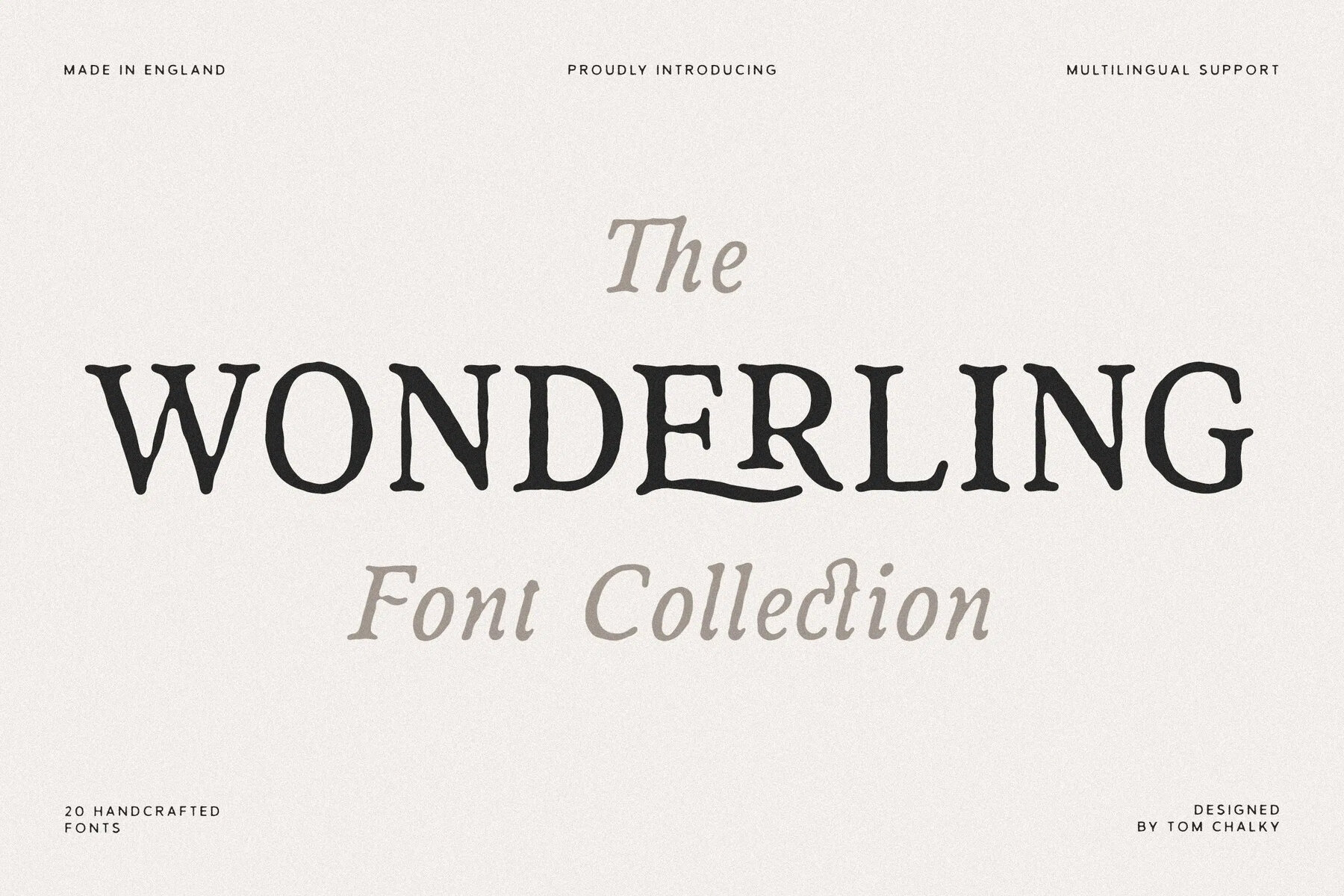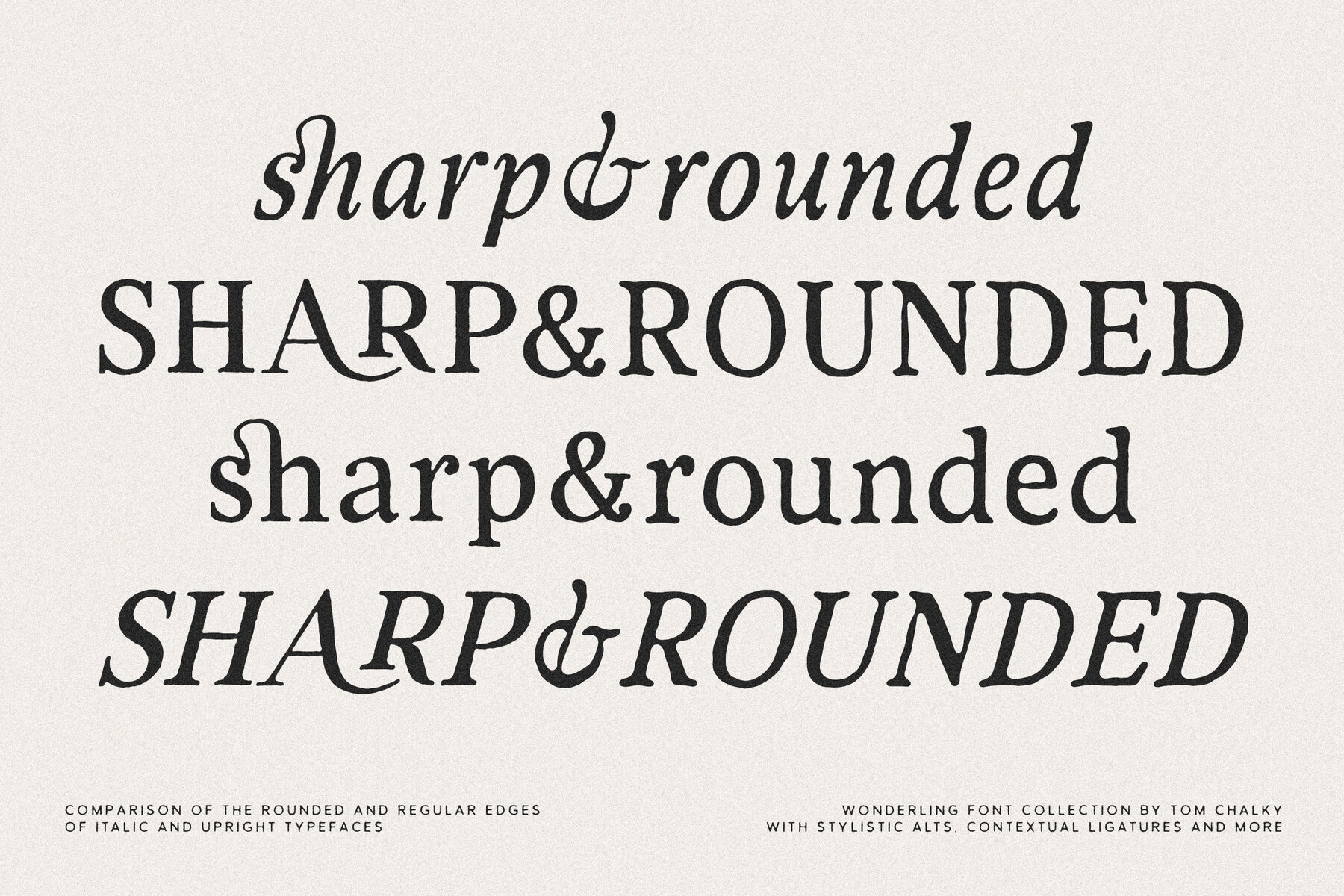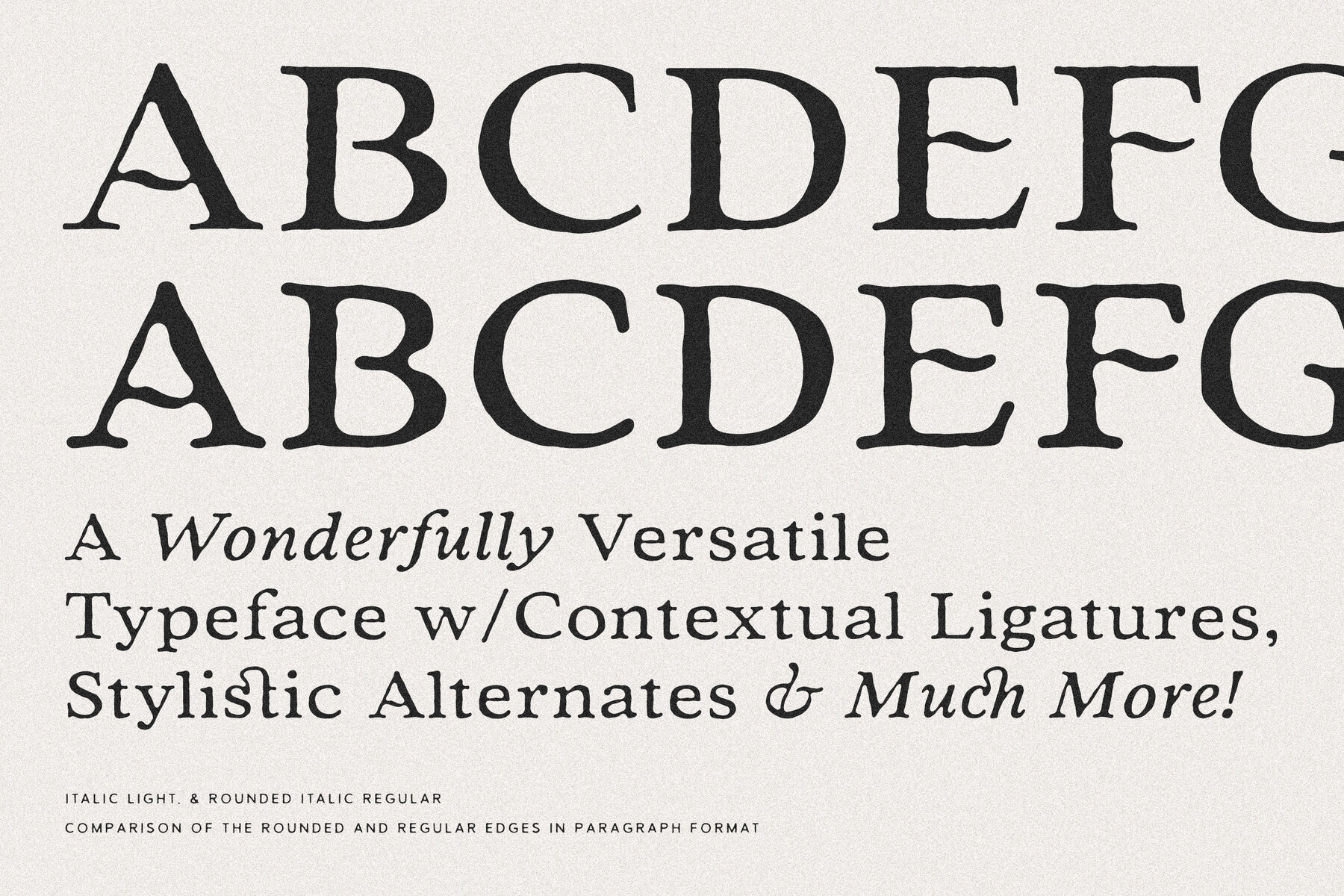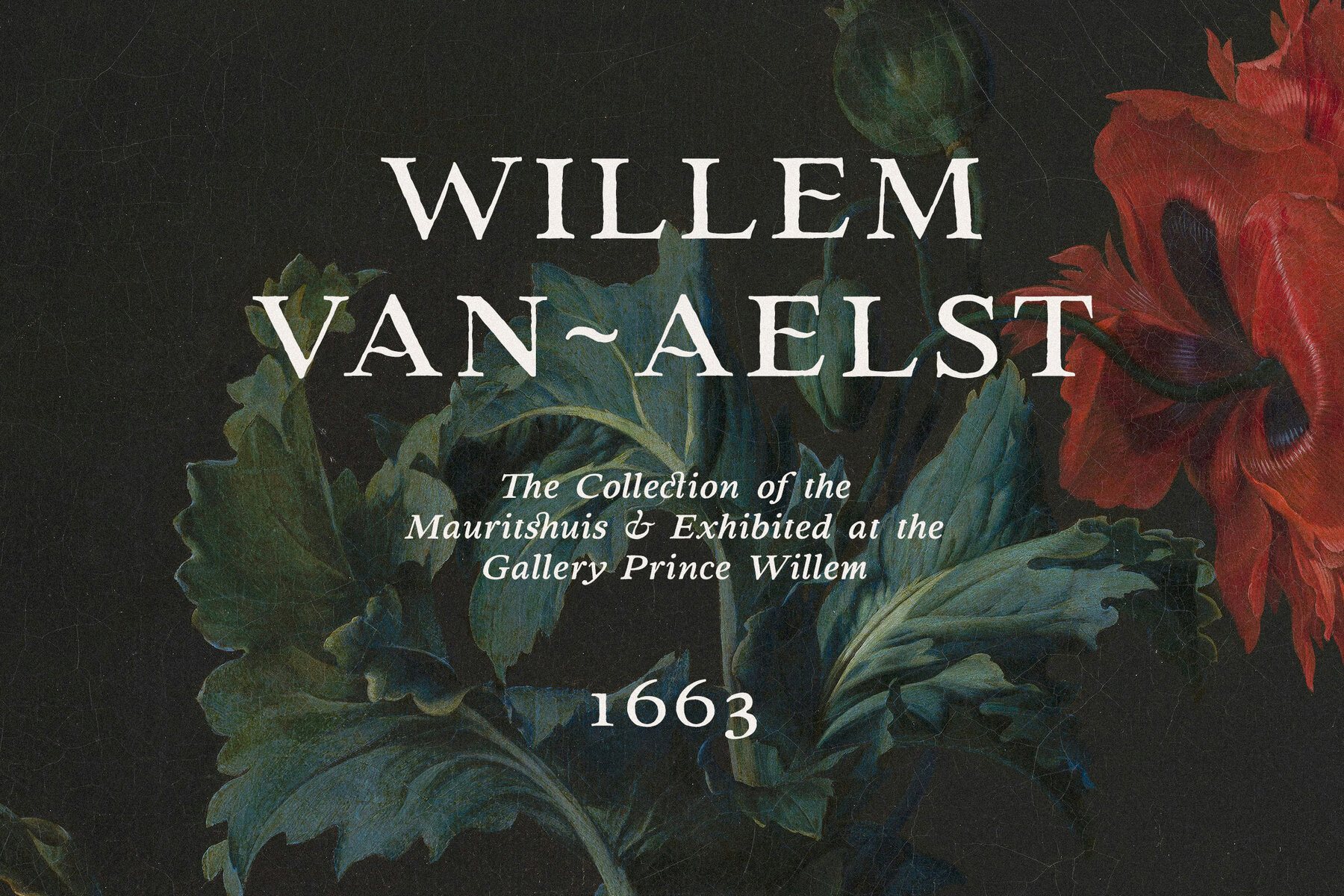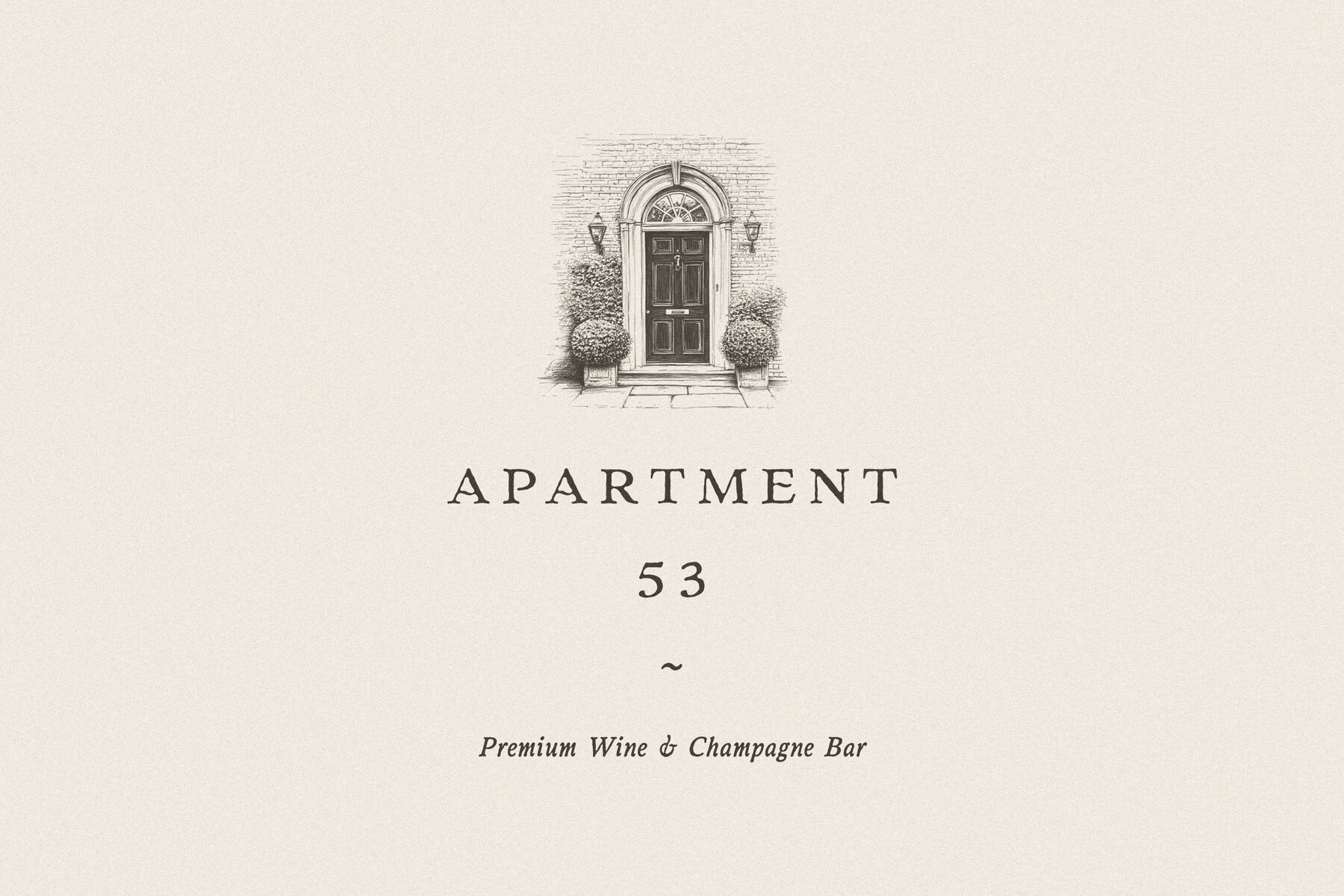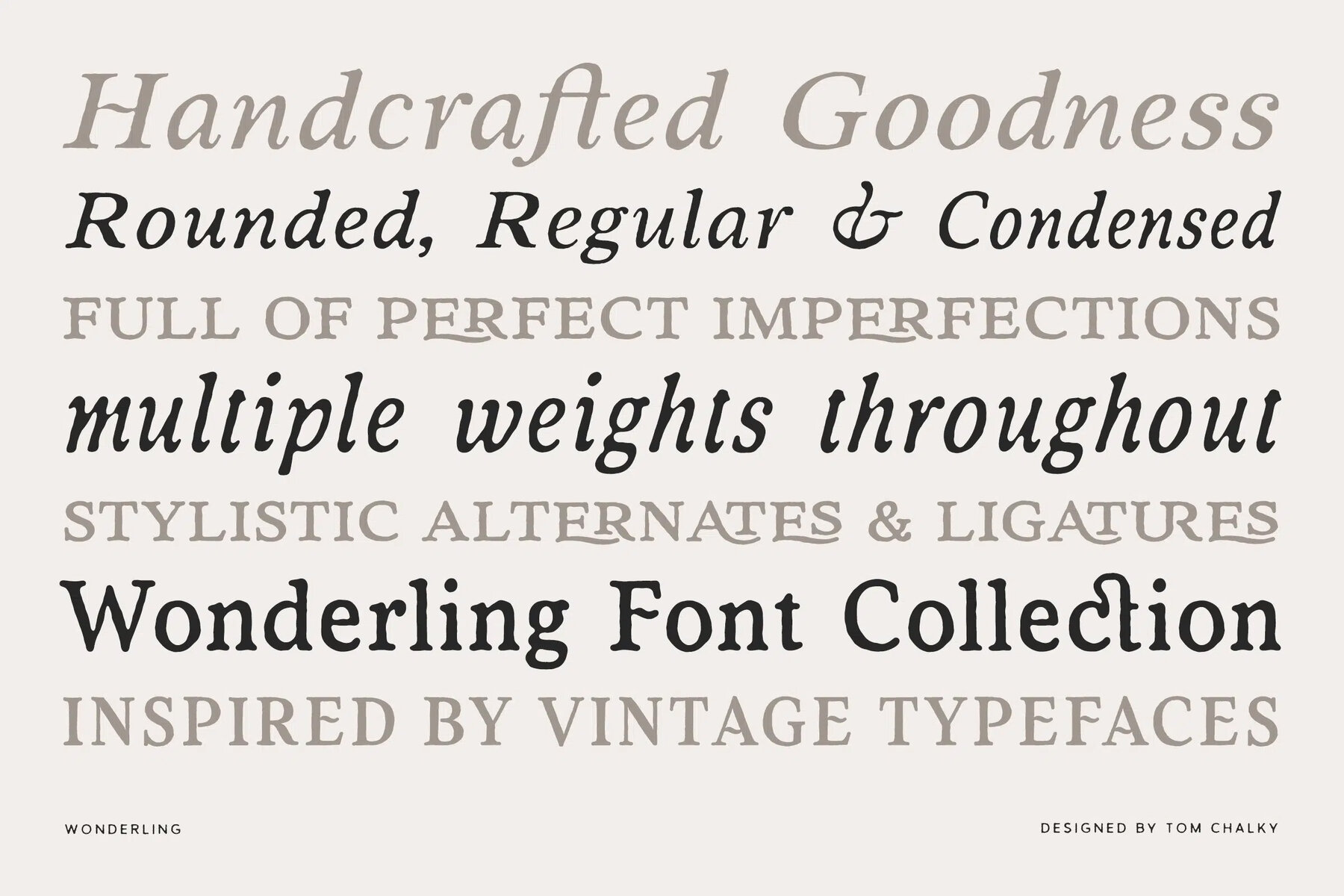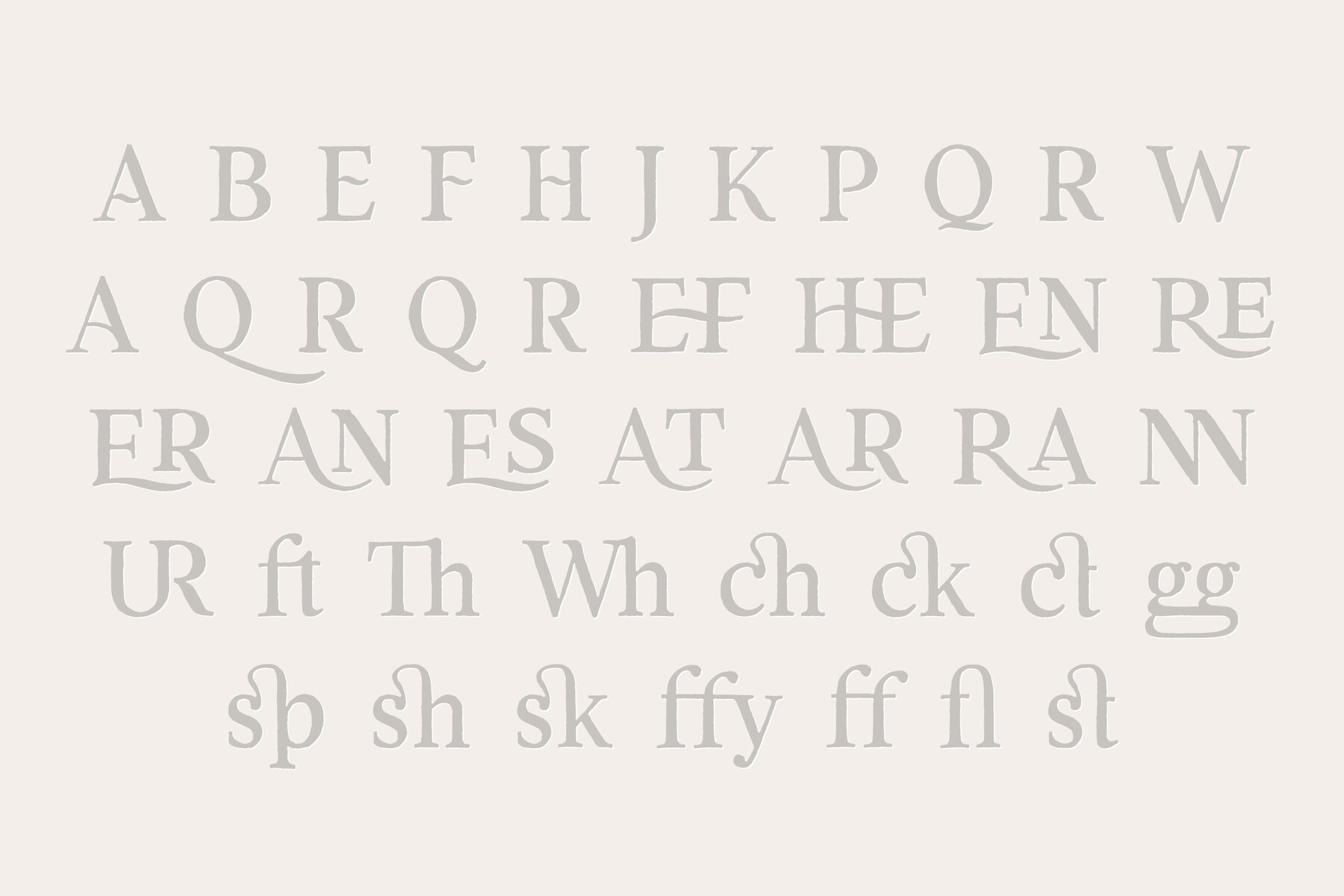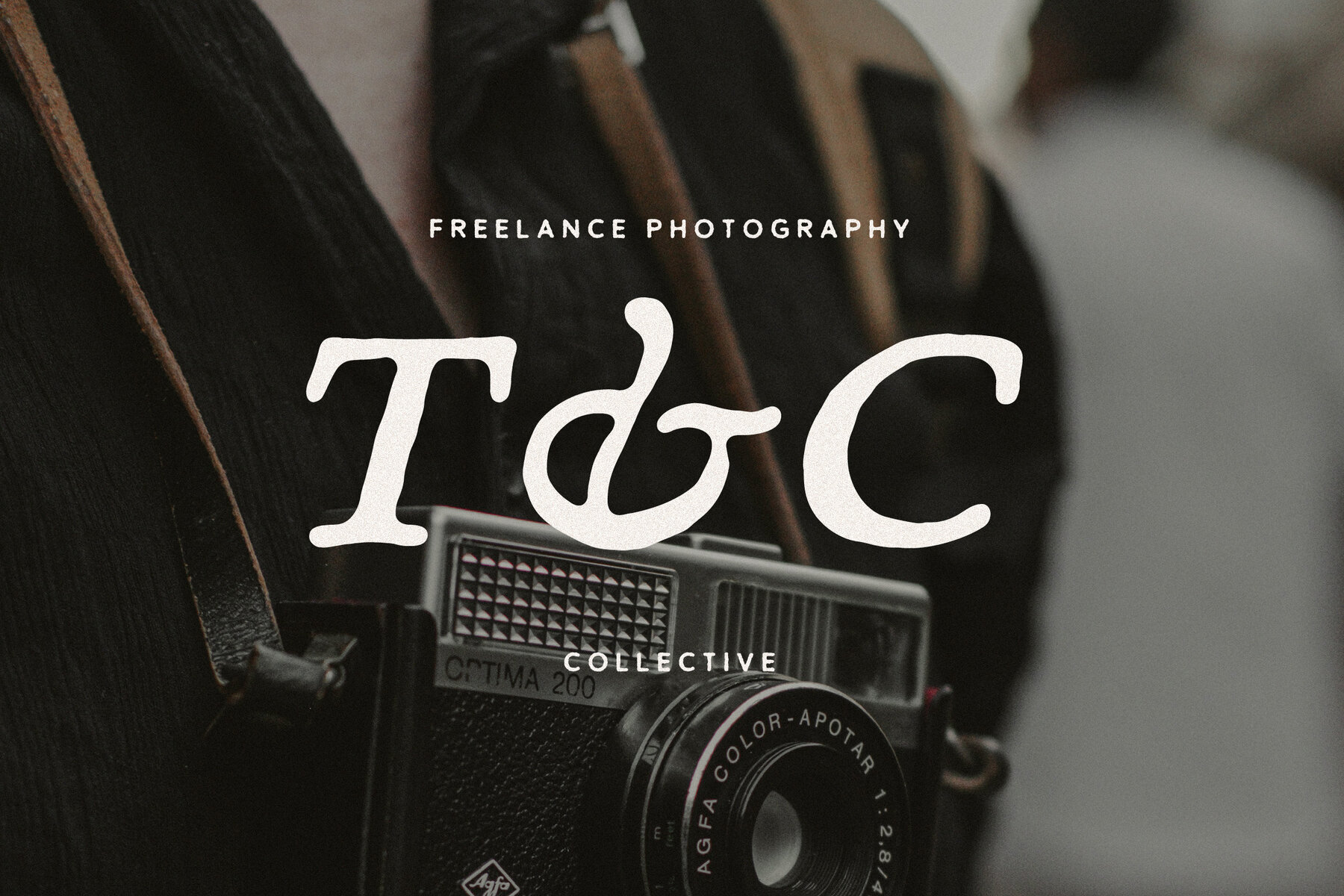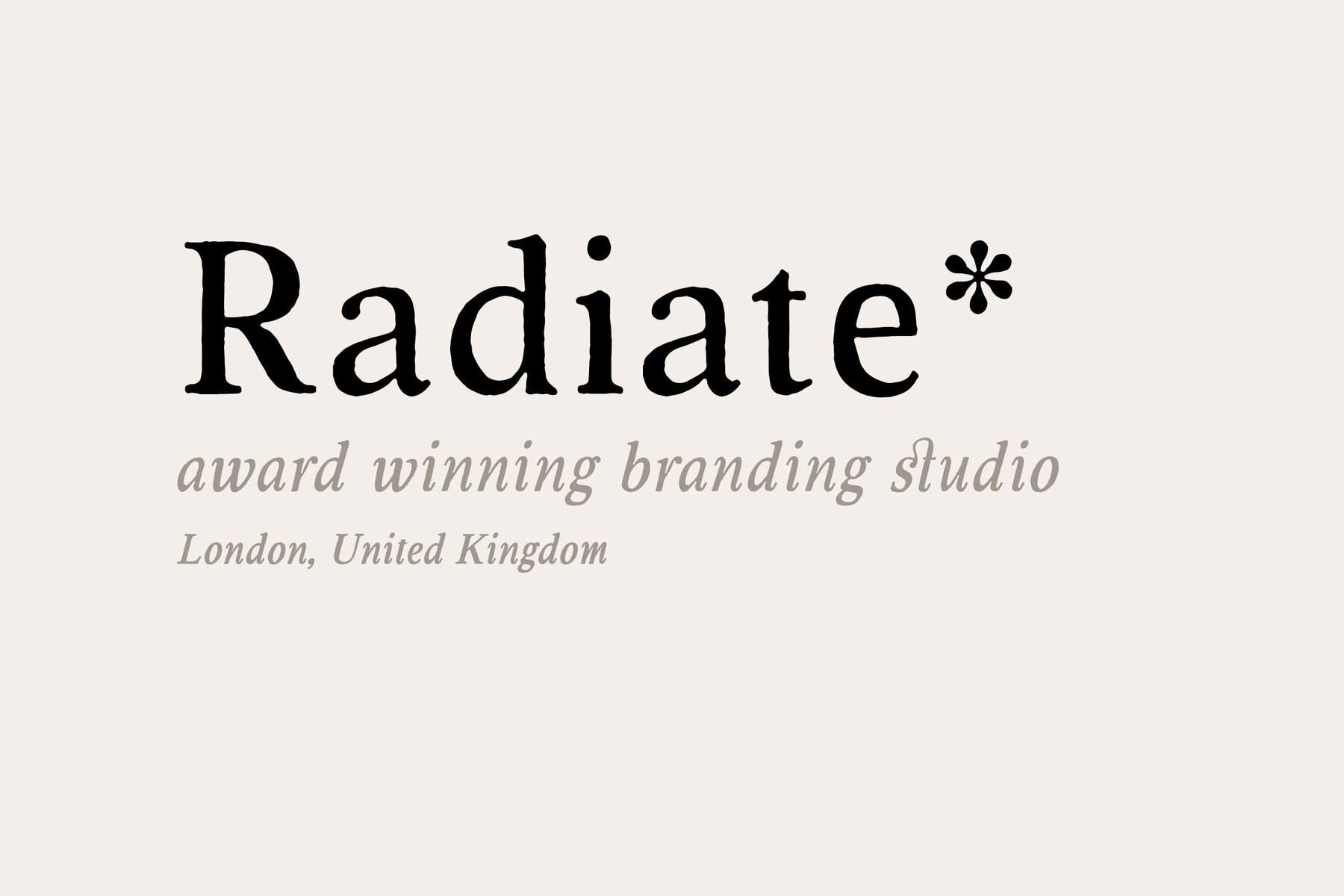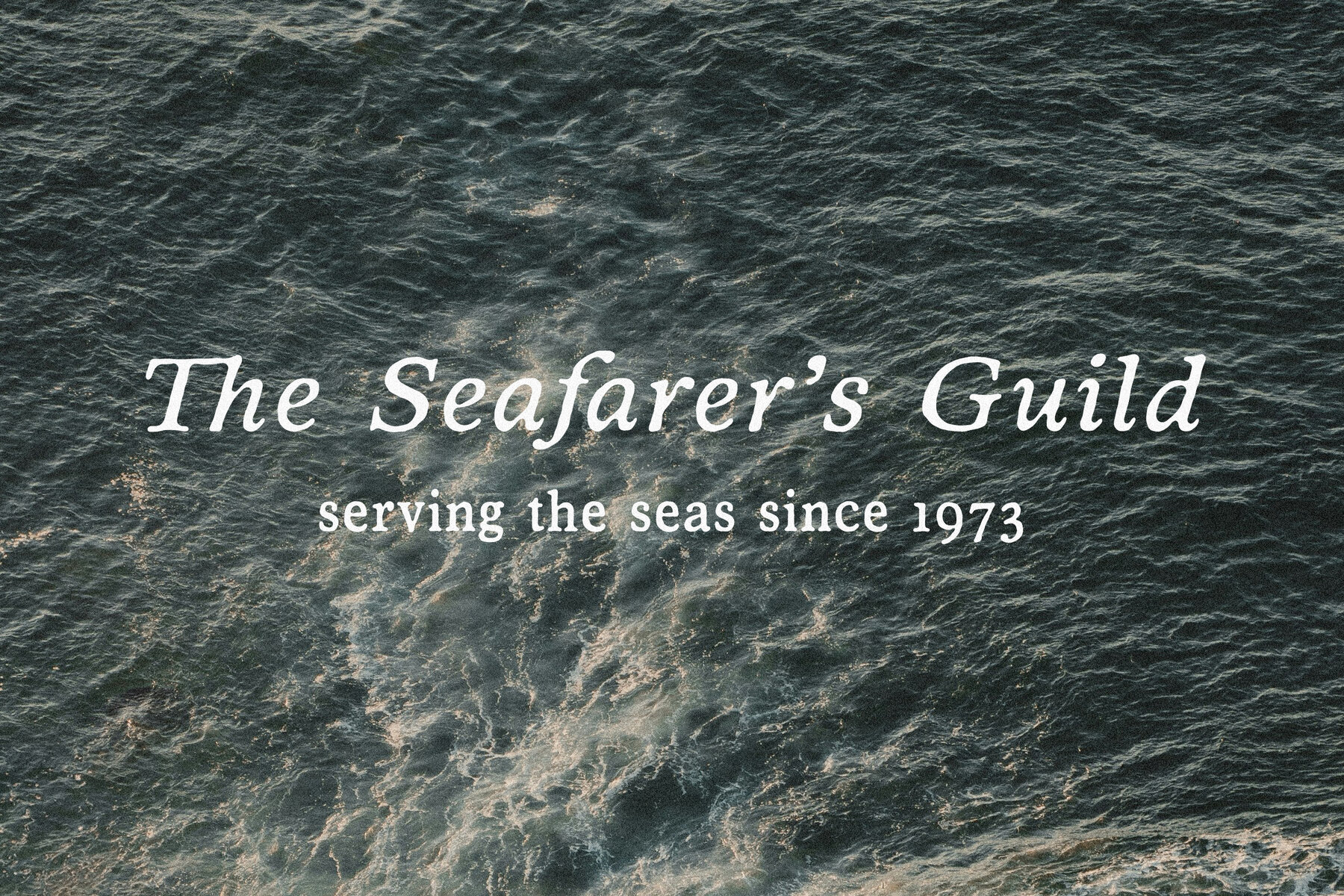
TC Wonderling Font
The ‘Wonderling’ Font Collection is a robust yet elegant tribute to vintage typography, perfect for projects that demand character and versatility. Drawing inspiration from classic serif typefaces of years past, Wonderling combines timeless elegance with handcrafted charm, resulting in a collection of adaptable fonts suitable for a range of design applications—from logos to invitations, packaging to branding, and everything in between. With 20 handcrafted fonts spanning multiple weights across regular, rounded, italic, and condensed styles, this collection offers plenty of versatility. Each font is packed with contextual ligatures and stylistic alternates for those moments when your designs need an extra touch of flair!